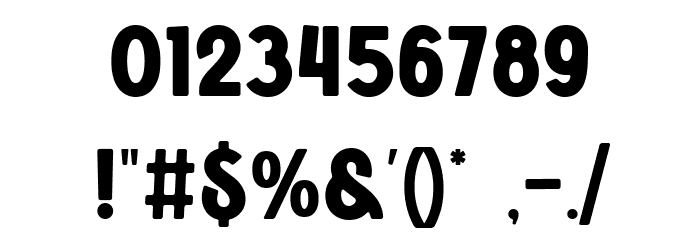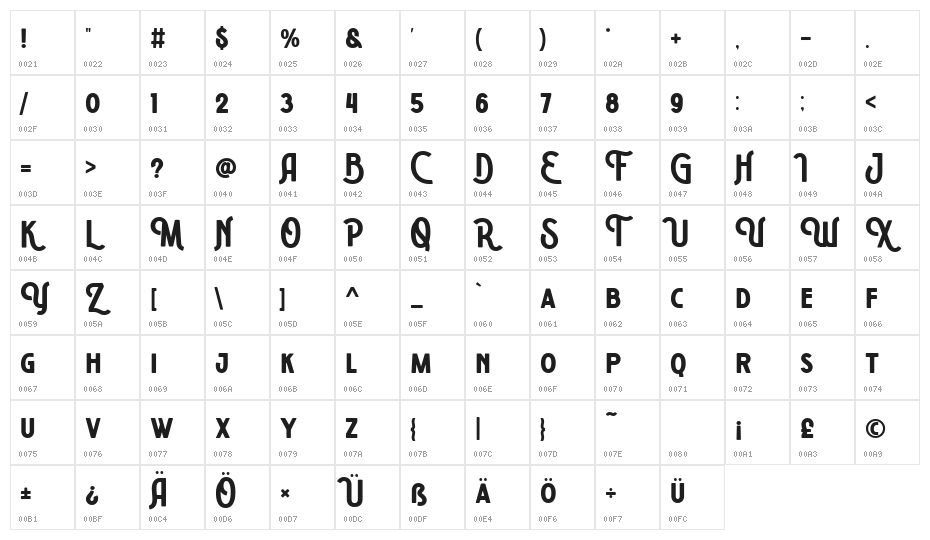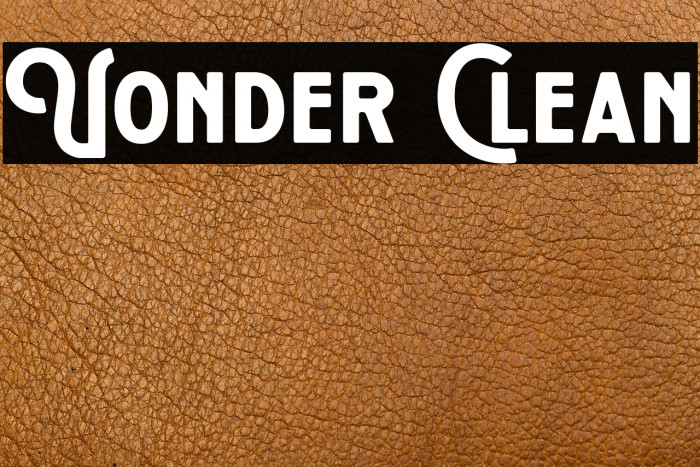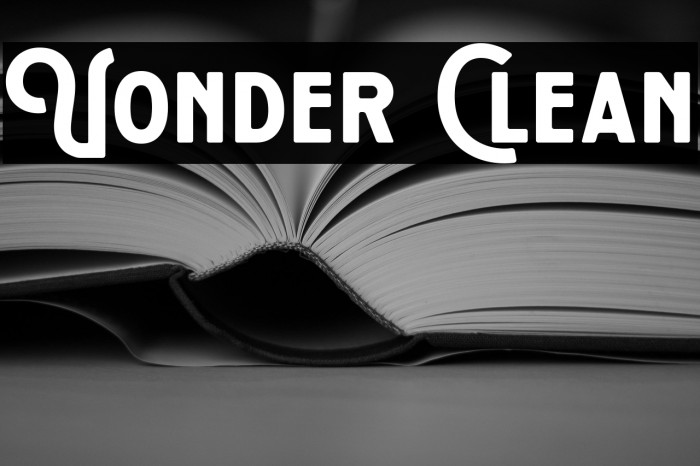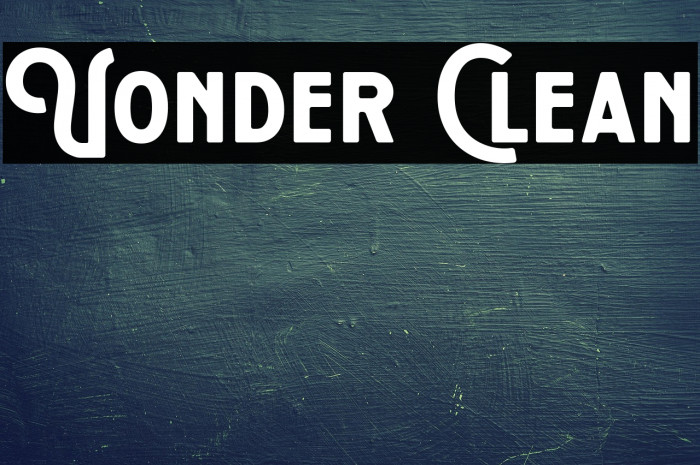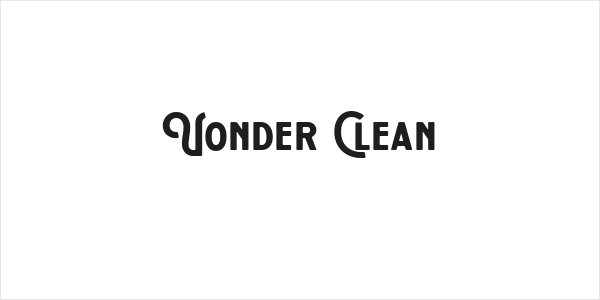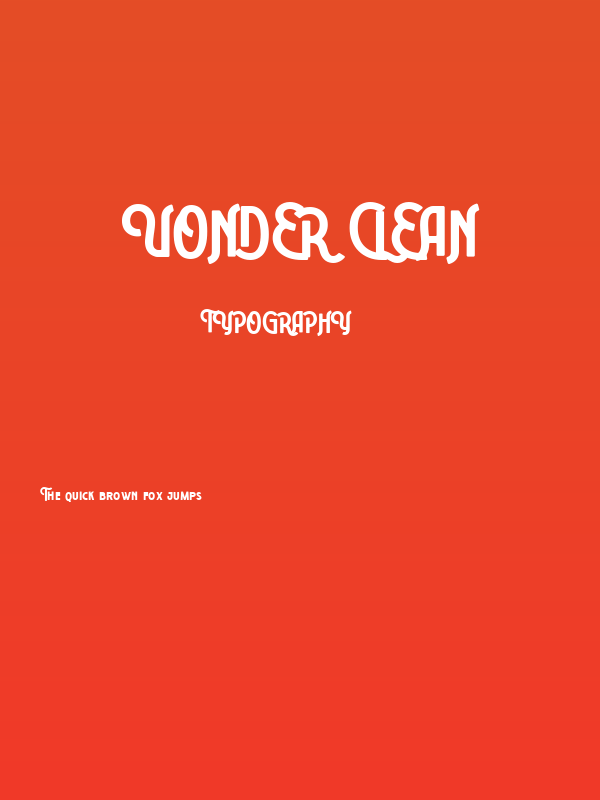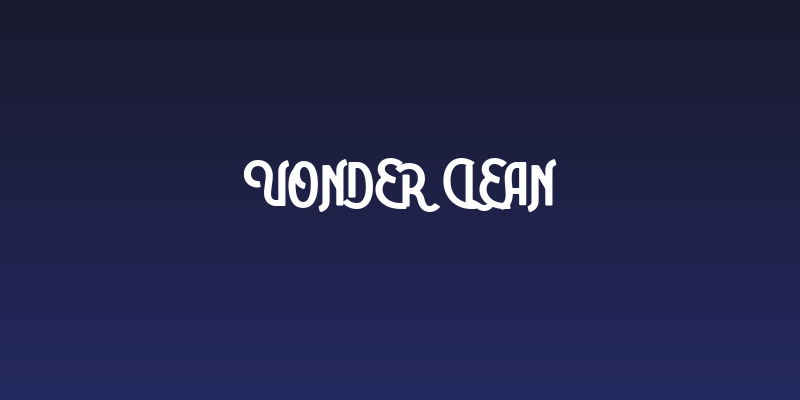
Vonder Clean Font
Vonder Clean Description
This font features a unique blend of bold and playful characteristics, combining elements of both decorative and modern styles. The uppercase letters exhibit a whimsical flair with curvy, exaggerated strokes, while the lowercase letters maintain a more straightforward, bold appearance. The numbers are consistent with the boldness of the lowercase letters, ensuring readability. Special characters are designed with a similar boldness, adding a cohesive look across all elements. The font's overall style is eye-catching and suitable for projects that require a touch of creativity and boldness.
| Proposed Projects | Ideal for branding, poster design, and creative advertising campaigns. |